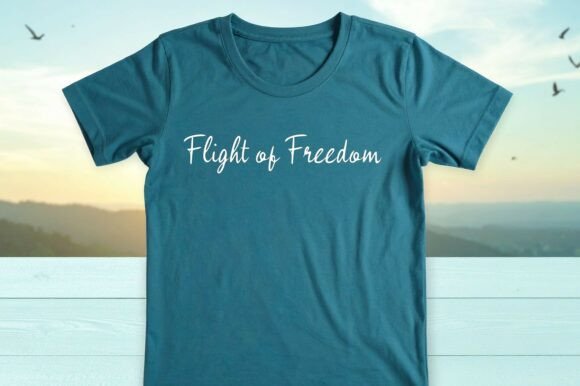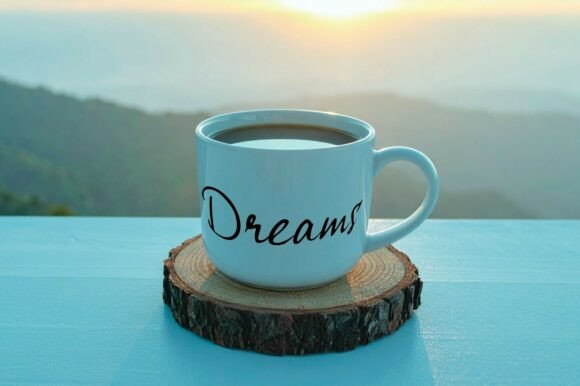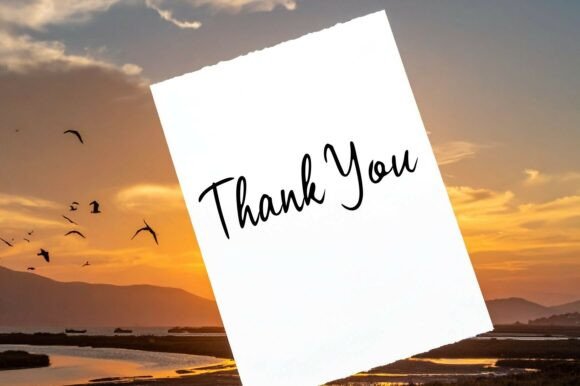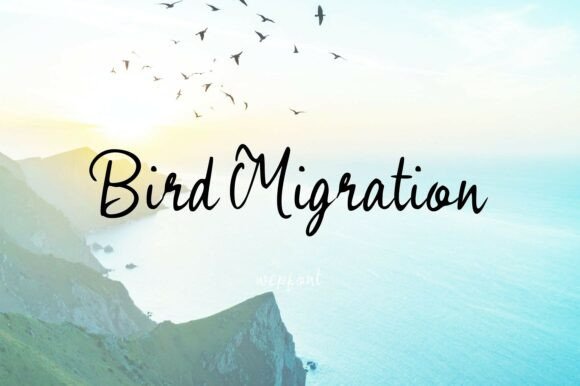
Bird Migration Font: Soaring to New Heights of Elegance
Immerse yourself in the serenity of the skies with the Bird Migration font. This delicate and dynamic script typeface transcends ordinary design with its grace and fluidity, capturing the effortless beauty of avian motion. Seamlessly mirroring the natural elegance of a flock in flight, Bird Migration conjures a sense of liberation and aspiration.
The Essence of Bird Migration Font
Perfectly tailored for designs seeking to evoke peacefulness and inspiration, this font resonates with the whispers of nature and dreams. It carries an ethereal appeal while simultaneously grounding products with its artistic flair, instilling an air of unambiguous beauty. The luminous flow of the Bird Migration font is ideal for articulating a heartfelt “Thank You,” echoing the sincerity of the words with its gentle undulations.
Design Inspiration from Nature
The Bird Migration font draws its inspiration from the majestic flight of birds, evoking a sense of freedom and adventure. Its delicate curves and fluid lines mirror the natural world, bringing a touch of organic elegance to any design. This font is perfect for designers and crafters seeking to infuse their creations with a sense of whimsy and wonder.
Ideal Applications for Bird Migration Font
Shine in the universe of lifestyle branding with Bird Migration, walking the path of tranquility, adventure, and natural allure. This font is ideal for:
- Wellness brands seeking to evoke a sense of serenity and calmness
- Travel agencies looking to capture the essence of adventure and exploration
- Handmade crafts that desire to instill a sense of natural elegance and sophistication
Key Features of Bird Migration Font
The Bird Migration font boasts a range of features that make it an ideal choice for designers and crafters:
- Delicate and dynamic script typeface
- Fluid lines and curves that mirror the natural world
- Ethereal appeal with an artistic flair
- Ideal for designs seeking to evoke peacefulness and inspiration
- Perfect for articulating heartfelt messages with sincerity and elegance
Tips for Using Bird Migration Font
To get the most out of the Bird Migration font, consider the following tips:
- Use it as a headline font to capture attention and evoke emotion
- Pair it with bold typography for a striking contrast
- Experiment with different colors and textures to enhance its natural appeal
- Use it to create a sense of movement and fluidity in your design
The Bird Migration font is a beautiful and elegant script typeface that captures the essence of avian motion and the natural world. With its delicate curves and fluid lines, it’s perfect for designers and crafters seeking to infuse their creations with a sense of whimsy and wonder. Whether you’re working on a wellness brand, travel agency, or handmade craft, this font is sure to soar to new heights of elegance and sophistication.